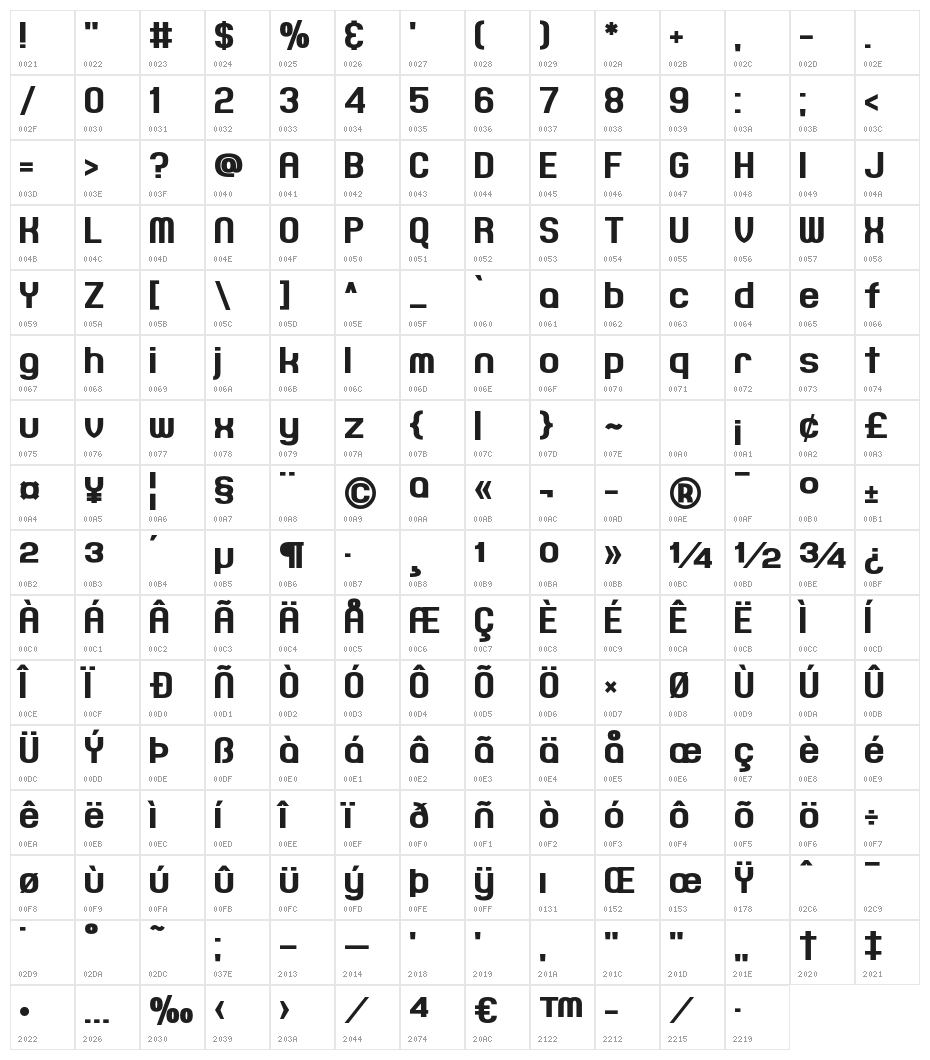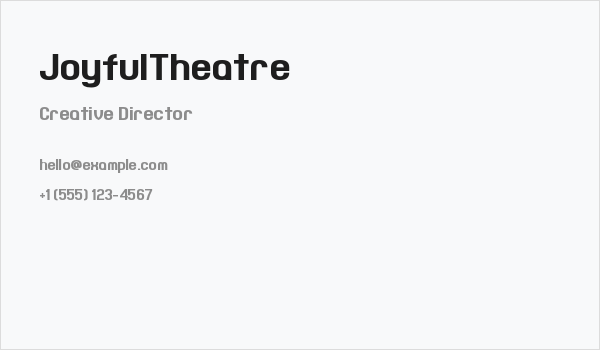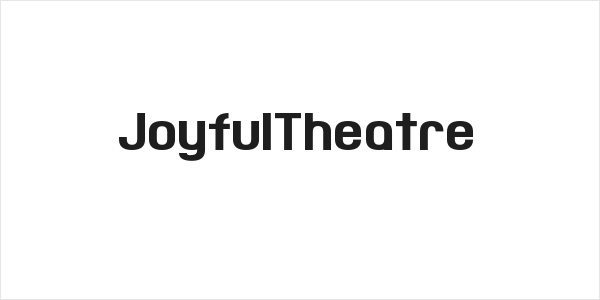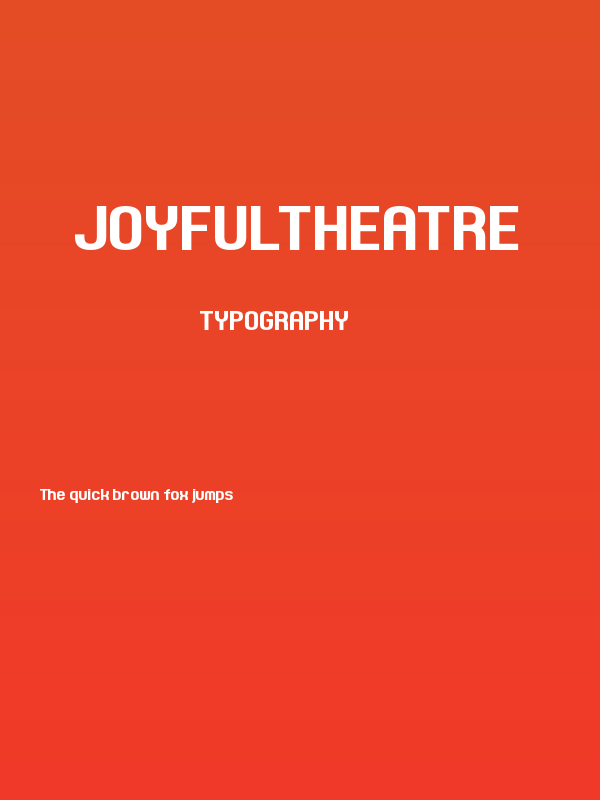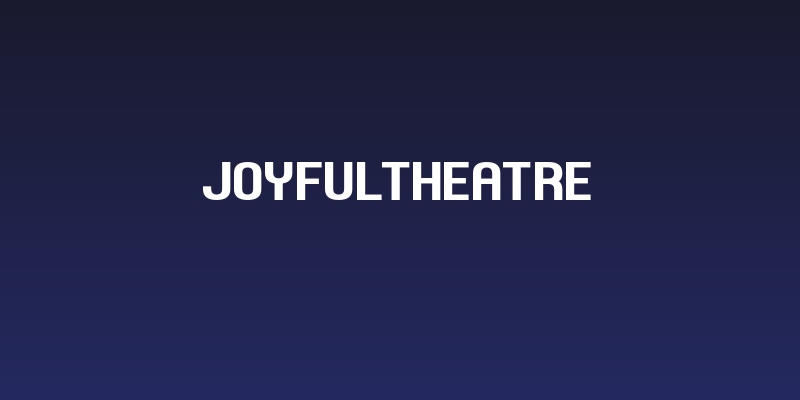
JoyfulTheatre Font
JoyfulTheatre Description
This font features a bold and modern design with clean, rounded edges that give it a friendly and approachable appearance. The characters are well-balanced, with consistent stroke widths that provide a harmonious look across both uppercase and lowercase letters. The numerals and special characters maintain the same design ethos, ensuring uniformity throughout. Its geometric structure and slightly condensed form make it suitable for a variety of applications, from digital interfaces to print media. The font's clarity and readability are enhanced by its medium contrast and normal character spacing, making it versatile for both headlines and body text.